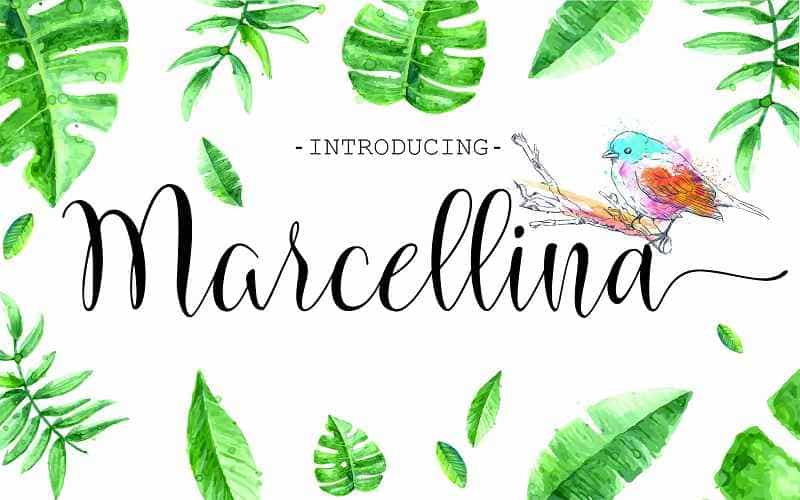
Discover Marcellina Script Font, part of the Calligraphy collection—a versatile and unique font perfect for adding a personal touch to your projects. Download it for free and enjoy crafting designs with style, from invitations to social media posts. This font is available exclusively for personal use, giving you the freedom to create without limits. Unlock your creativity with Marcellina Script Font today!
The name of this font is Marcellina The Script font. These fonts were created by Fajar Gunawan, and the font has been released for free and personal use Only the uppercase letters are provided, as well as several special characters, in its free version for download and personal use only.